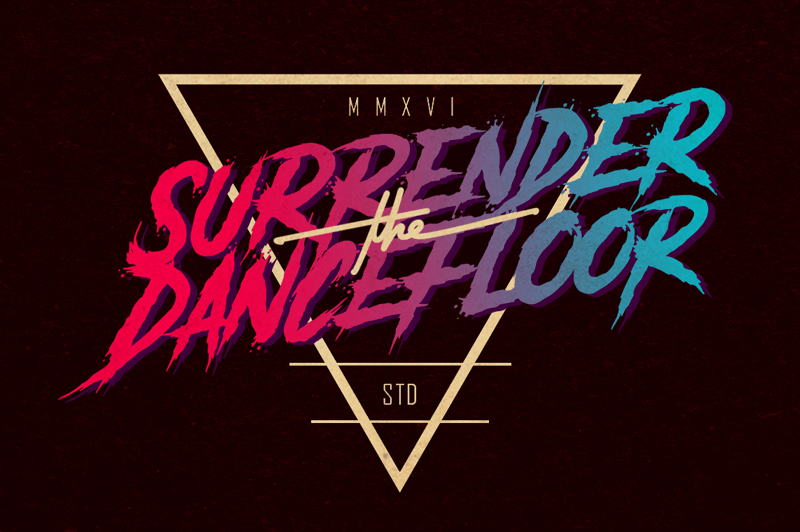
Crunchy – Stylish Handwritten Script Font, special creative products for you, our products will give you an extraordinary experience. the latest style letters are perfect for wall displays, wedding invitations, social media post logos, advertisements, product packaging, product designs, labels, photography, watermarks, invitations, stationery, and any project that requires taste handwriting.